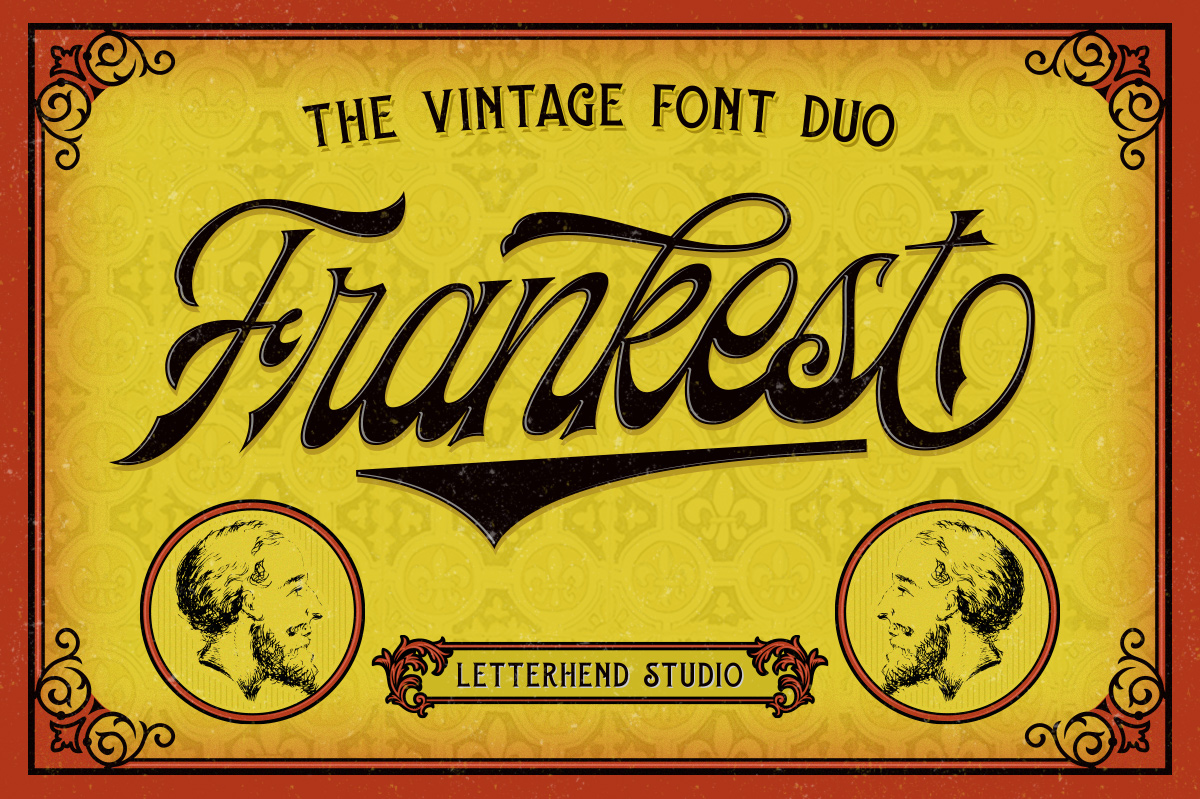
Frankest Font
Perfect for logos, posters, headlines, packaging, and creative branding projects.
The Frankest Font excites designers with its bold, quirky style that combines vintage charm with modern flair, creating a unique and memorable look.
The Frankest Font Free Download is a display typeface featuring strong, slightly irregular letterforms that add personality and character to any design.
One of the key strengths of Frankest Font is its distinctive style that stands out in crowded visual environments while maintaining readability and versatility.
In branding, Frankest communicates creativity, boldness, and individuality. It pairs well with vibrant colors, textured backgrounds, and playful layouts to create eye-catching visuals.
For digital projects, this font enhances social media graphics, website headers, and digital advertisements, ensuring your content grabs attention with style and confidence.